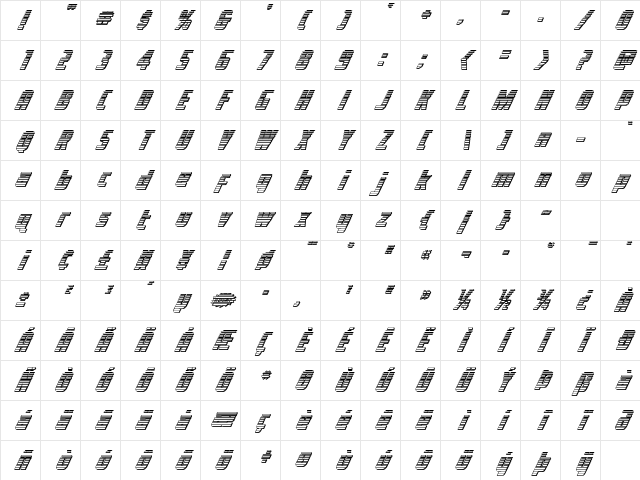
Voyage Fantastique Chrome Italic
Design Context for Voyage Fantastique Chrome
Voyage Fantastique Chrome is a composed and adaptable typeface that performs quietly and consistently across a wide range of design contexts. The slanted form adds forward momentum and visual energy.
Pro Tip: Use Voyage Fantastique Chrome for emphasis, pull quotes, and subheadings where its slanted energy can add rhythm to the layout.